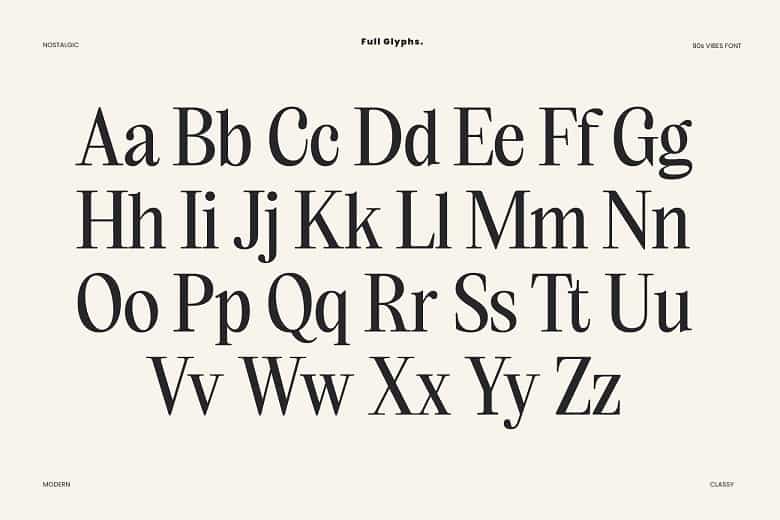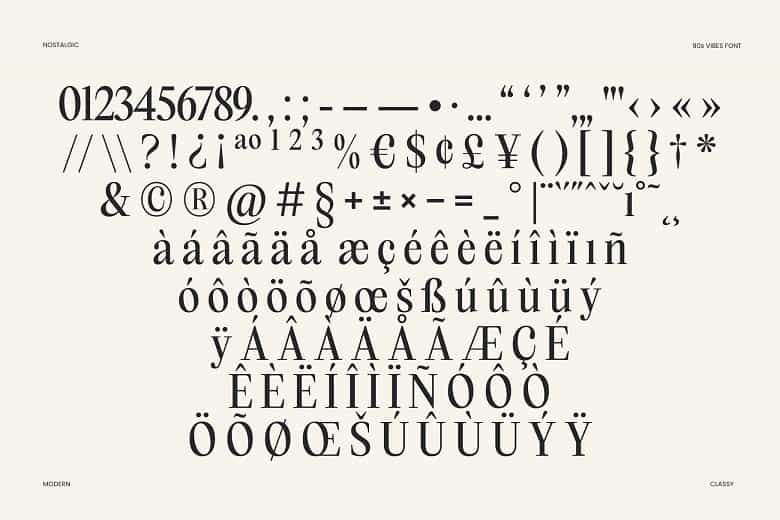
Celatic Editorial is a beautiful, fashion and stylish serif font that combines the aesthetics of the 90s with elegance of the modern world. This font is suitable for such purposes as book titles, logos, flyers, branding, banners, crafting, and invitations. Celatic Editorial has a clean and elegant design with a vintage touch